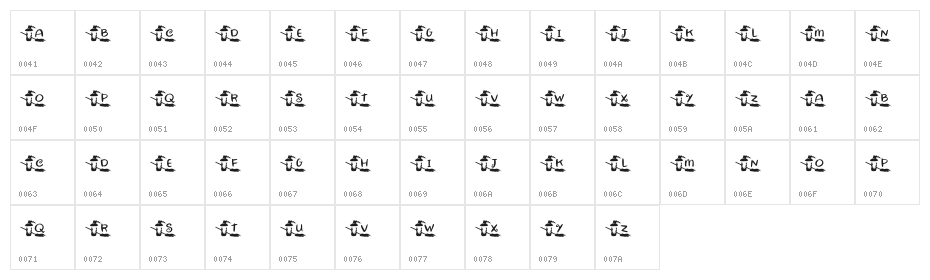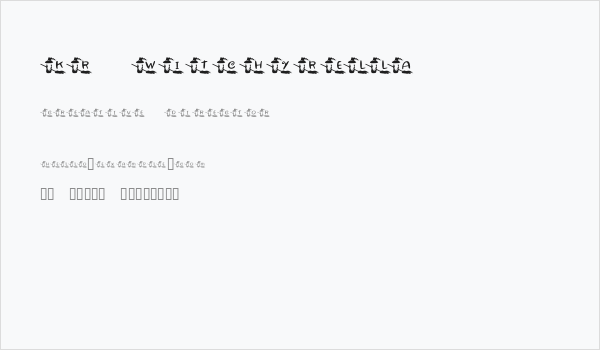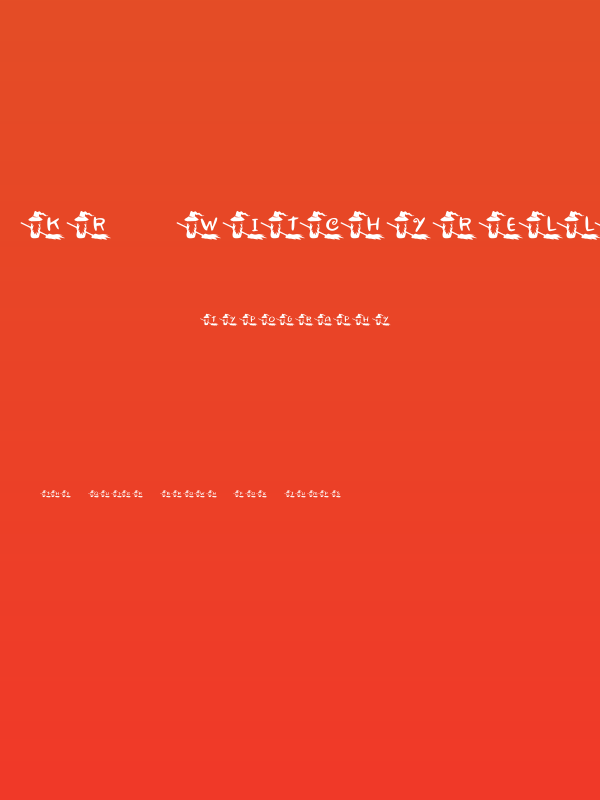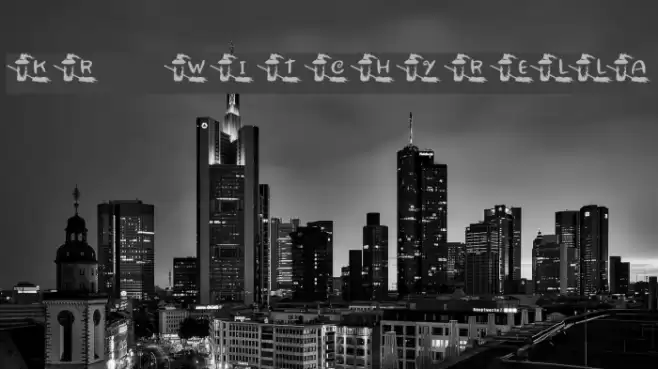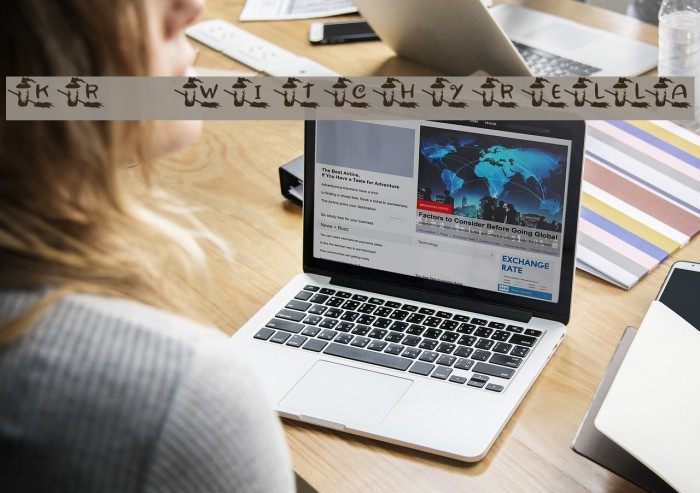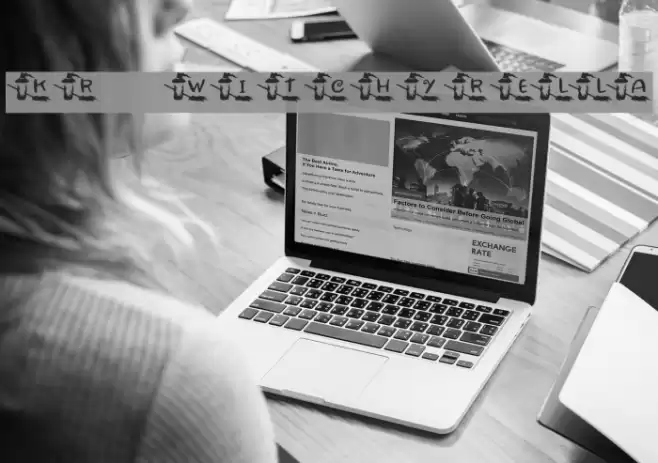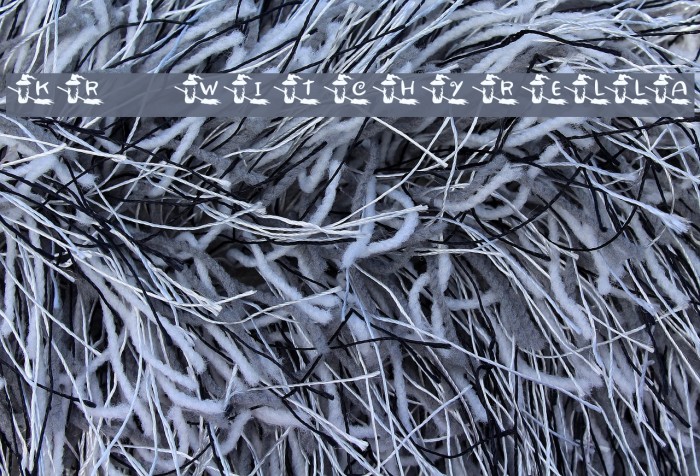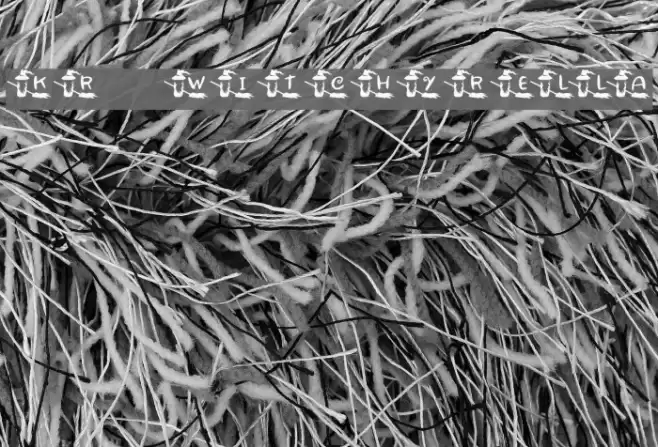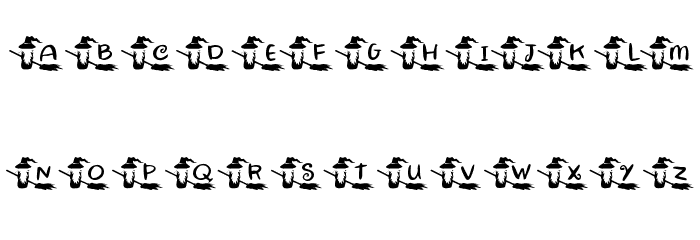
KR Witchyrella Font
KR Witchyrella Description
This font features a whimsical and decorative style, incorporating elements of fantasy and magic. Each character is adorned with a witch-like hat and broomstick motif, creating a playful and thematic appearance. The uppercase and lowercase letters maintain a consistent design, with the witch elements seamlessly integrated into the letterforms. The font is highly decorative, making it suitable for themed projects that require a touch of enchantment. The characters are bold and distinct, ensuring readability despite the intricate design elements. This font is perfect for Halloween-themed projects, fantasy book covers, or any creative endeavor that seeks to evoke a sense of magic and wonder.
| Proposed Projects | Ideal for Halloween invitations, fantasy book covers, themed party decorations, and magical event posters. |